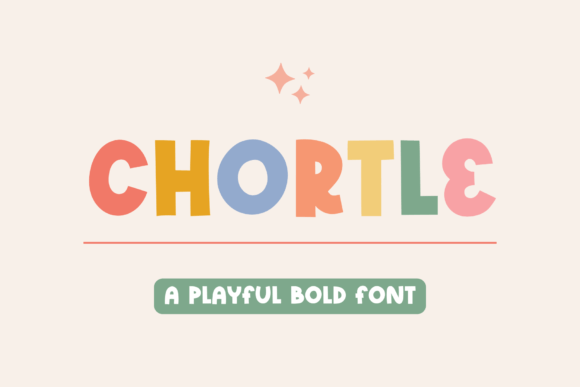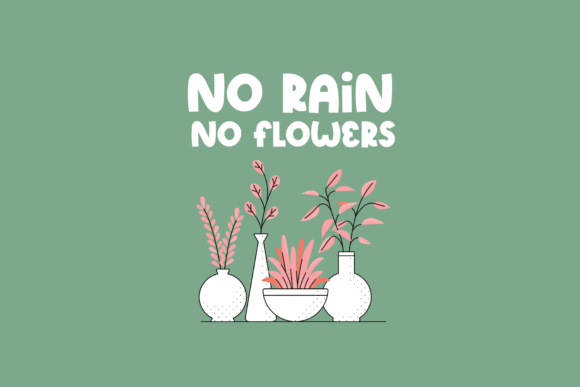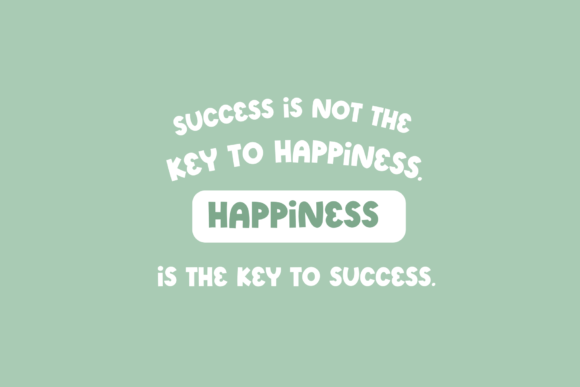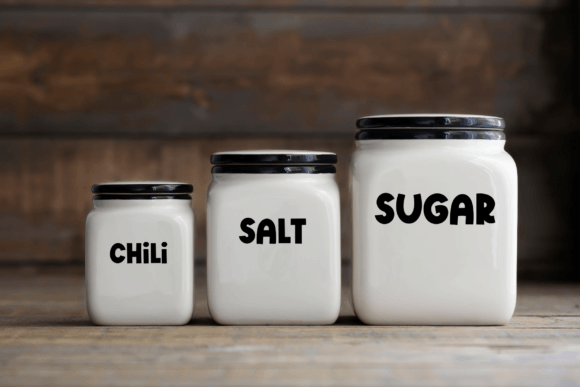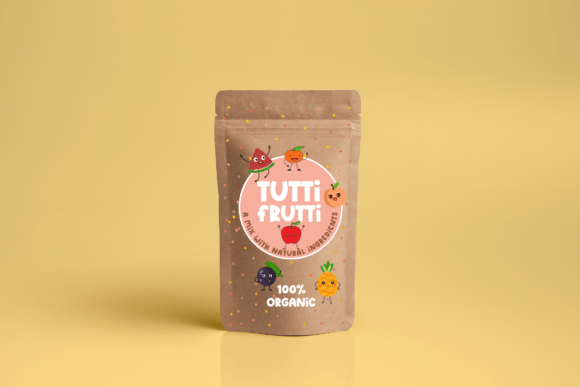
Chortle Font
About Chortle Font
Chortle is a bold and quirky display font. Use Chortle for your creative projects: mugs, t-shirts, wall prints, labels, stickers, blogs, quotes, greeting cards, tea towels, apparel, pillows, toys, posters, baby clothing, picture books and so much more.